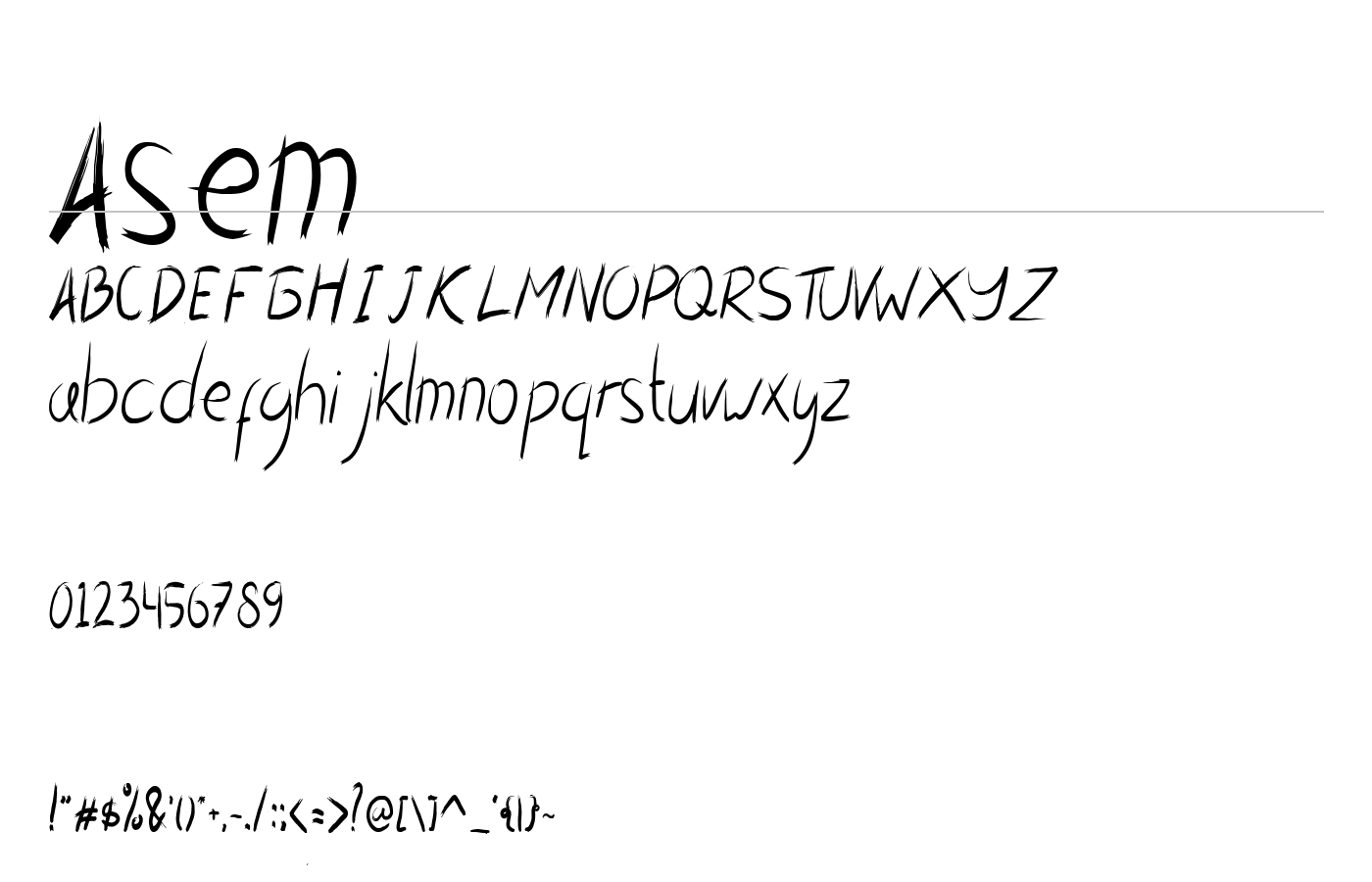
Asem is a distinctive handwritten font with a tall, narrow structure and energetic, irregular strokes that give it a dynamic, artistic feel. Its sharp, slightly rough lines create an informal and expressive personality, making it perfect for creative projects, playful branding, and designs needing a personal touch. This font works well in headlines, posters, and logos where a unique, hand-drawn aesthetic can stand out.
Asem Font